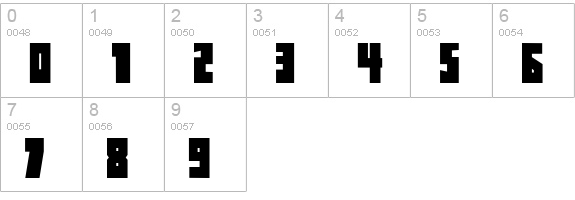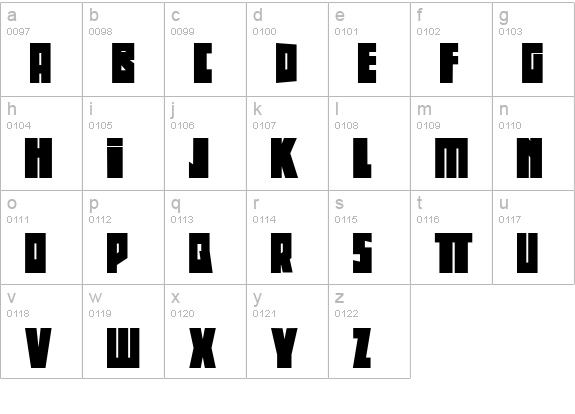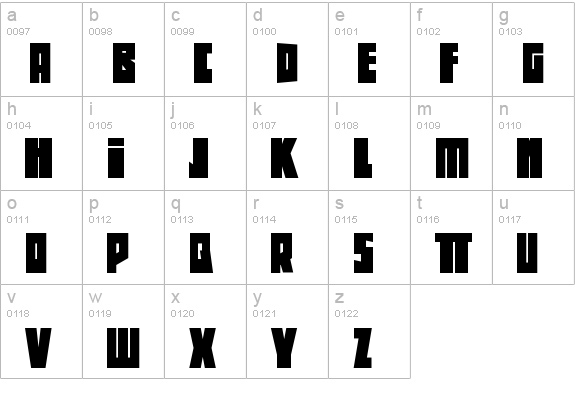
Beethoven Font Details
Beethoven font is a timeless and elegant typeface that exudes sophistication and class. With its bold and distinctive letterforms, Beethoven font is perfect for creating eye-catching headlines, logos, and branding materials. This versatile font can be used for a variety of design projects, from print to digital applications. The best part is that Beethoven font is available for free download at FontsMarket.com. Whether you're a professional designer or a hobbyist looking to add a touch of elegance to your projects, Beethoven font is the ideal choice. Download it today and elevate your designs with this exquisite typeface.